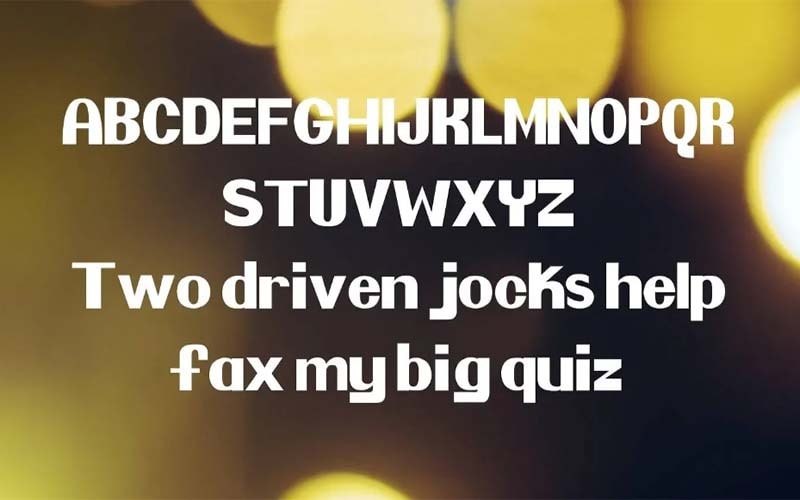
Pretendo Font is a bold sans serif and fancy typeface that is very famous only because of its beautiful and different shapes. This amazing font was created by Erwin Denissen for the first time in 1999.
Emphasizing great clarity, modern ligatures, and sharp features, it is an accessible typeface these days. This will take any type of design to the pro level.
The unique style of this font has its fantastic appearance and features that give any design a slight touch. That’s why it makes a great combo with other basic typeface families.
Pretendo Font
So, according to this situation, we can say that its essential features are the stunning and delightful texture in the long text display. It is famous for its heavy scenery and stylish structure.
You can use it to create amazing logos, brochure layouts, banner ads, poster crafting, wedding, invitation, or business card designs, flyers, styling in clocks, a headline for an article, and many creative projects.